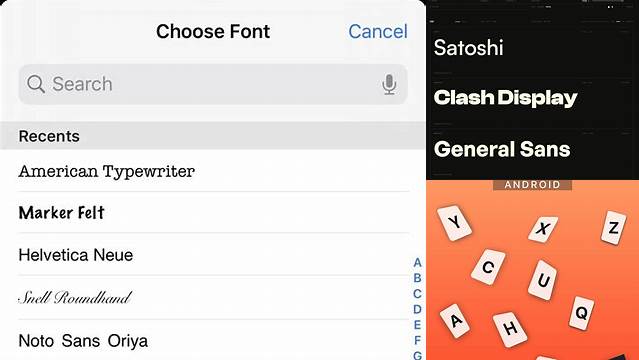
IOS Fonts On Android: How To Get The Look Safely
Hey guys! Ever wanted to get that sleek iOS look on your Android device? One of the easiest ways to do that is by changing your font! But, downloading an APK for iOS fonts? That might sound a bit confusing. Let's dive deep into the world of iOS fonts on Android, exploring different methods, potential risks, and how to get the best results.
1. Understanding iOS Fonts and Android Compatibility
So, you're probably thinking, "Can I just grab an iOS font and slap it onto my Android?" Well, it's not quite that simple. iOS and Android are different operating systems, and they handle fonts differently. Typically, iOS fonts are in .ttf
format, which can be compatible with Android. However, the way these fonts are rendered might vary. An iOS fonts download apk might try to bridge this gap, but it's essential to know what you're getting into. Before installing anything, always make sure you trust the source and have a backup of your current system, just in case!
2. The Appeal of iOS Fonts on Android
Why all the fuss about iOS fonts anyway? Well, let's be real – iOS fonts like San Francisco (the default on iPhones and iPads) are known for their clean, modern, and readable design. Many users find them aesthetically pleasing and want to replicate that feel on their Android devices. Using an iOS fonts download apk promises to give you that fresh, stylish look without buying a whole new iPhone! This customization allows you to personalize your phone and stand out from the crowd.
3. Is an 'iOS Fonts Download APK' the Right Approach?
6. Custom ROMs and Font Customization
For the more adventurous users, installing a custom ROM can offer even greater control over your device's appearance, including font customization. Custom ROMs often come with built-in font pickers or allow you to easily install custom fonts. However, this method is more advanced and carries the risk of bricking your device if not done correctly. So, proceed with caution and only if you're comfortable with flashing ROMs.
7. Rooting Your Android Device for Font Changes
Rooting your Android device gives yousuperuser access, allowing you to modify system files, including font files. While rooting provides maximum flexibility, it also voids your warranty and increases the risk of security vulnerabilities. If you choose to root, make sure you understand the risks involved and follow reliable guides.
8. Identifying Fonts Similar to San Francisco (iOS)
San Francisco is a hallmark of iOS design. When seeking alternatives, look for fonts with similar characteristics: clean lines, balanced letterforms, and good readability. Many free fonts mimic these qualities, so you don't always need an iOS fonts download apk. Websites like Google Fonts offer a variety of fonts that share stylistic similarities with San Francisco.
9. Font Managers: A Centralized Approach
Font managers, available on the Play Store, help you organize, preview, and install fonts from various sources. They provide a centralized interface for managing your font collection, making it easier to switch between different styles and find the perfect font for your needs.
10. The Impact of Fonts on User Experience
Fonts play a crucial role in user experience. A well-chosen font can enhance readability, improve aesthetics, and create a more engaging experience. Conversely, a poorly chosen font can strain the eyes and make text difficult to read. So, take your time to select a font that complements your device and your personal preferences.
11. Font Licensing and Legal Considerations
Before using any font, be sure to check its license. Some fonts are free for personal use but require a commercial license for business purposes. Using a font without the proper license can lead to legal issues. So, always respect the font creator's rights and adhere to the licensing terms.
12. Troubleshooting Font Installation Issues
Sometimes, font installation can go wrong. If you encounter issues, try clearing the app's cache, restarting your device, or reinstalling the font app. If the problem persists, consult the app's documentation or seek help from online forums.
13. Exploring Monotype Fonts for Android
Monotype is a well-known font foundry that offers a wide range of high-quality fonts for Android devices. Many Android devices come pre-installed with Monotype fonts. You can explore Monotype's font catalog and purchase additional fonts to customize your device's appearance.
14. Font Styles: Bold, Italic, and More
Fonts come in various styles, including bold, italic, and condensed. Experimenting with different font styles can add visual interest and emphasis to your text. However, use font styles sparingly to avoid overwhelming the reader.
15. Changing Fonts on Samsung Devices
Samsung devices often have built-in font customization options. You can usually change the font directly from the device's settings menu without the need for a third-party app. Look for the "Font size and style" option in the settings menu.
16. Font Size Adjustments for Better Readability
Adjusting the font size can significantly improve readability. If you find the default font size too small or too large, you can easily change it in your device's settings. Experiment with different font sizes until you find one that is comfortable for your eyes.
17. Using Custom Fonts in Apps
Some apps allow you to use custom fonts within the app itself. This can be useful if you want to create a unique look for your documents, presentations, or social media posts. Check the app's settings to see if it supports custom fonts.
18. The Role of Fonts in Branding
Fonts play a crucial role in branding. A consistent font can help create a strong brand identity and reinforce your message. Choose a font that reflects your brand's personality and values.
19. Font Pairings: Combining Fonts Effectively
Font pairings involve combining two or more fonts to create a visually appealing and balanced design. When pairing fonts, choose fonts that complement each other and avoid using fonts that are too similar or clash with each other.
20. Online Font Converters: Converting Font Formats
Online font converters allow you to convert fonts from one format to another. This can be useful if you have a font in a format that is not supported by your device or app. However, be cautious when using online font converters, as some may contain malware.
21. Designing Your Own Fonts
For the truly creative, designing your own fonts is a rewarding experience. Font design software like FontLab Studio and Glyphs allow you to create custom fonts from scratch. However, font design is a complex process that requires time, skill, and attention to detail.
22. Exploring Google Fonts for Android
Google Fonts is a vast library of free and open-source fonts that are available for use on Android devices. Google Fonts offers a wide variety of fonts in different styles and languages, making it easy to find the perfect font for your needs.
23. Font Anatomy: Understanding Font Terminology
Understanding font terminology can help you better appreciate the nuances of typography. Key terms include serif, sans-serif, ascender, descender, and x-height. Learning these terms can help you communicate more effectively with designers and font creators.
24. The History of Fonts and Typography
The history of fonts and typography is a fascinating journey that spans centuries. From the invention of movable type to the digital fonts of today, typography has played a crucial role in shaping communication and culture. Understanding the history of fonts can give you a deeper appreciation for the art and science of typography.
25. Font Accessibility: Designing for Everyone
Font accessibility is an important consideration when designing for a wide audience. Choose fonts that are easy to read for people with visual impairments. Use sufficient contrast between the text and background, and avoid using fonts that are too small or decorative.
26. Using Emojis and Special Characters
Emojis and special characters can add personality and expressiveness to your text. However, use emojis and special characters sparingly to avoid distracting from your message. Make sure that the emojis and special characters you use are appropriate for your audience and context.
27. Advanced Typography Techniques
Advanced typography techniques include kerning, tracking, and leading. These techniques involve adjusting the spacing between letters, words, and lines to improve readability and visual appeal. Mastering these techniques can take your typography skills to the next level.
28. The Future of Fonts and Typography
The future of fonts and typography is likely to be shaped by new technologies and design trends. Variable fonts, which allow for dynamic font customization, are becoming increasingly popular. AI and machine learning may also play a role in font design and optimization.
29. Creating a Font Mood Board
A font mood board is a visual collage of fonts, images, and colors that helps you define the overall look and feel of a project. Creating a font mood board can be a useful exercise when starting a new design project, as it helps you explore different font options and find the perfect font for your needs.
30. Resources for Finding Free and Premium Fonts
There are numerous resources available for finding free and premium fonts. Websites like Google Fonts, Adobe Fonts, and MyFonts offer a wide selection of fonts to choose from. Be sure to check the licensing terms before using any font, and always respect the font creator's rights.